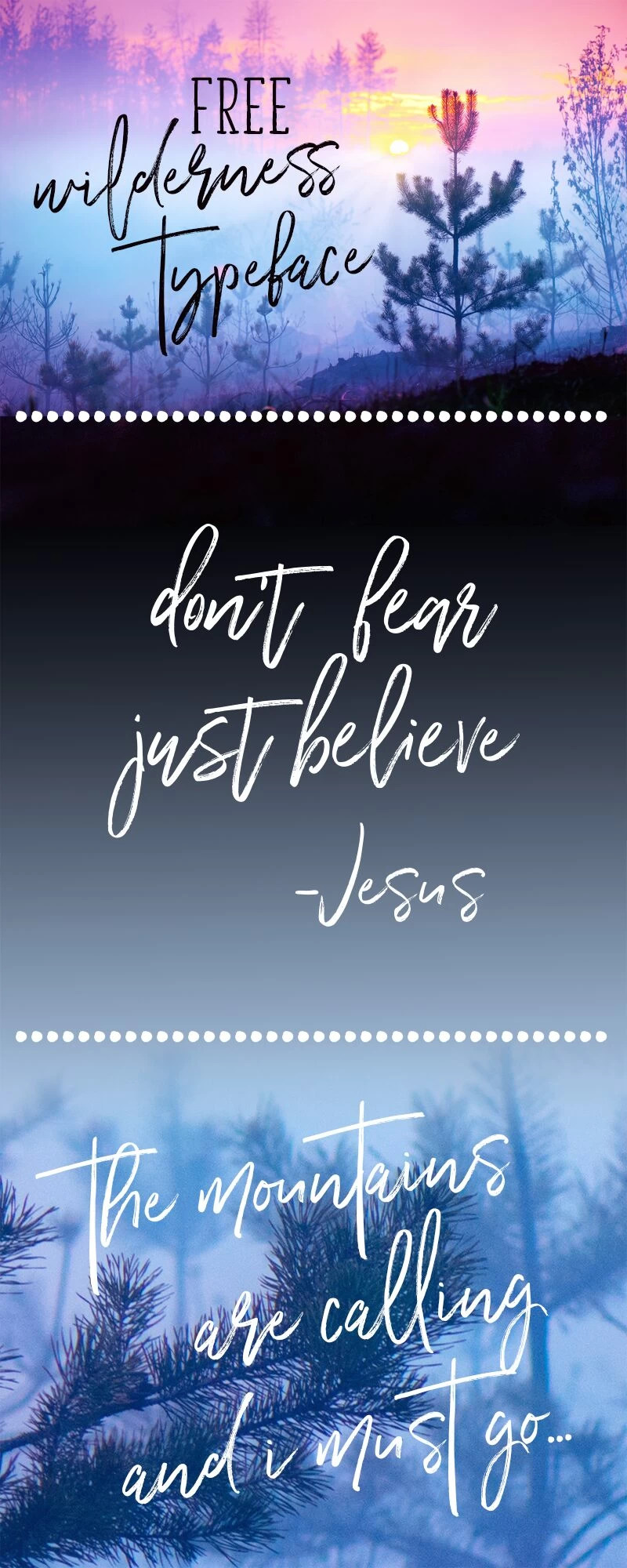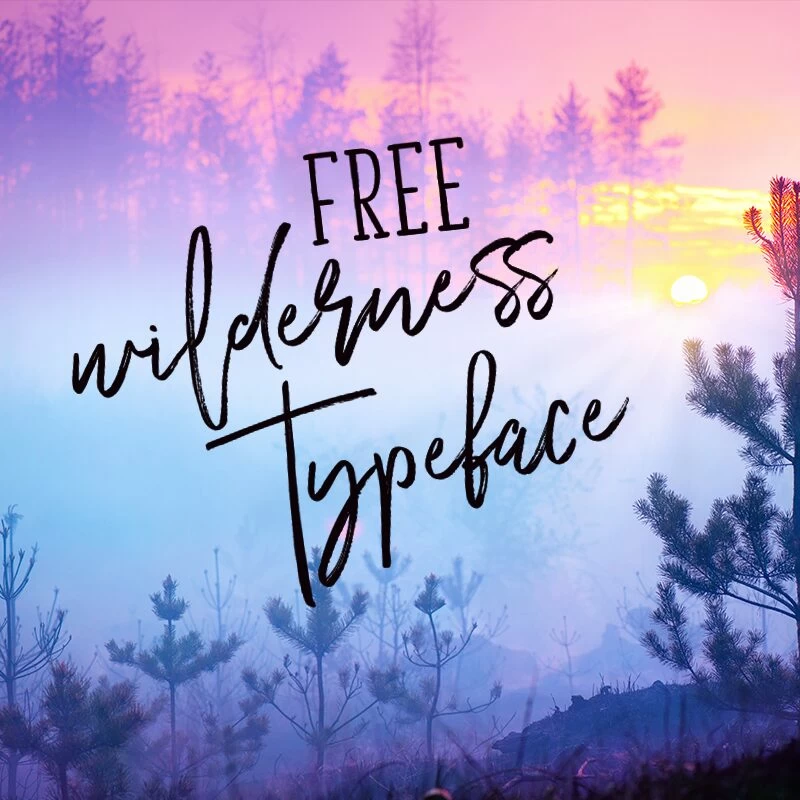
Happy days are here! Another gorgeous free font available From Wornout Media! In their own words…”Wilderness Typeface is a new funky hand-lettered font made with Tombow Fudesunoke brush pen. It’s authentically hand-lettered font with lowercase alternates. Designed to work perfectly in multiple designs like wedding invitations, website logos, Instagram posts and many many more!!”